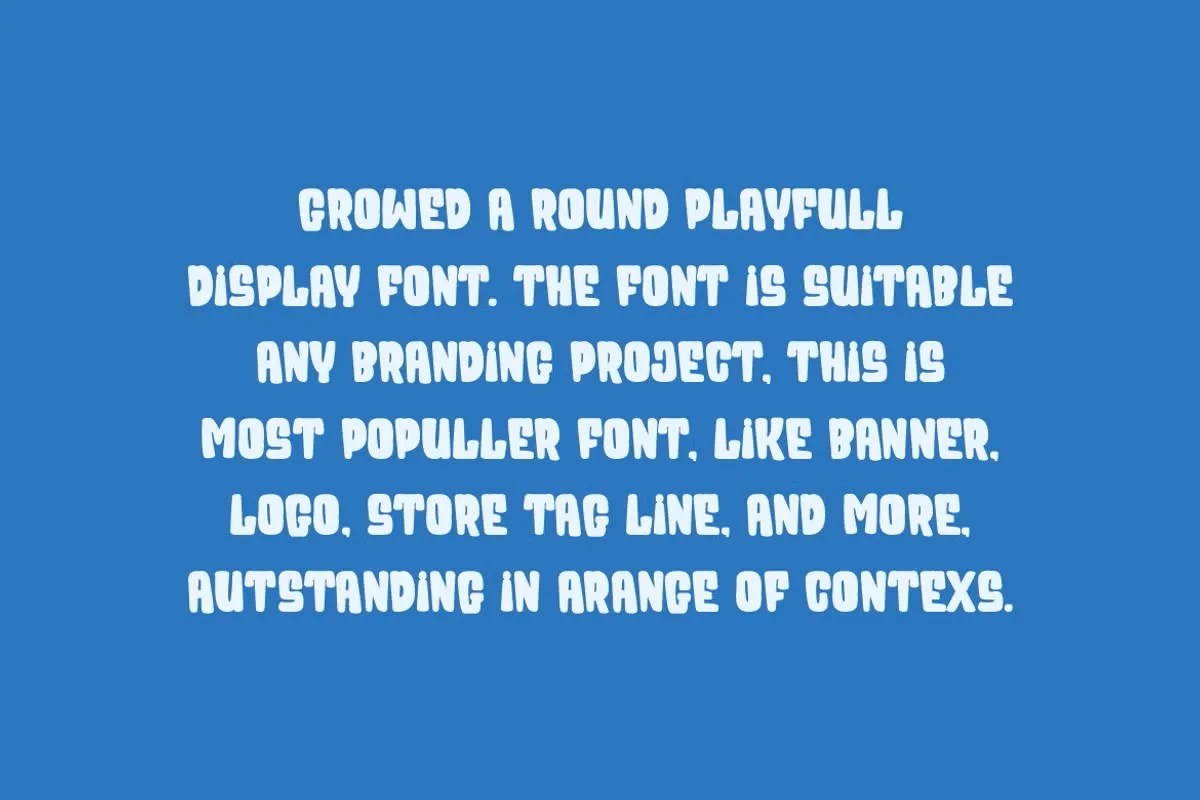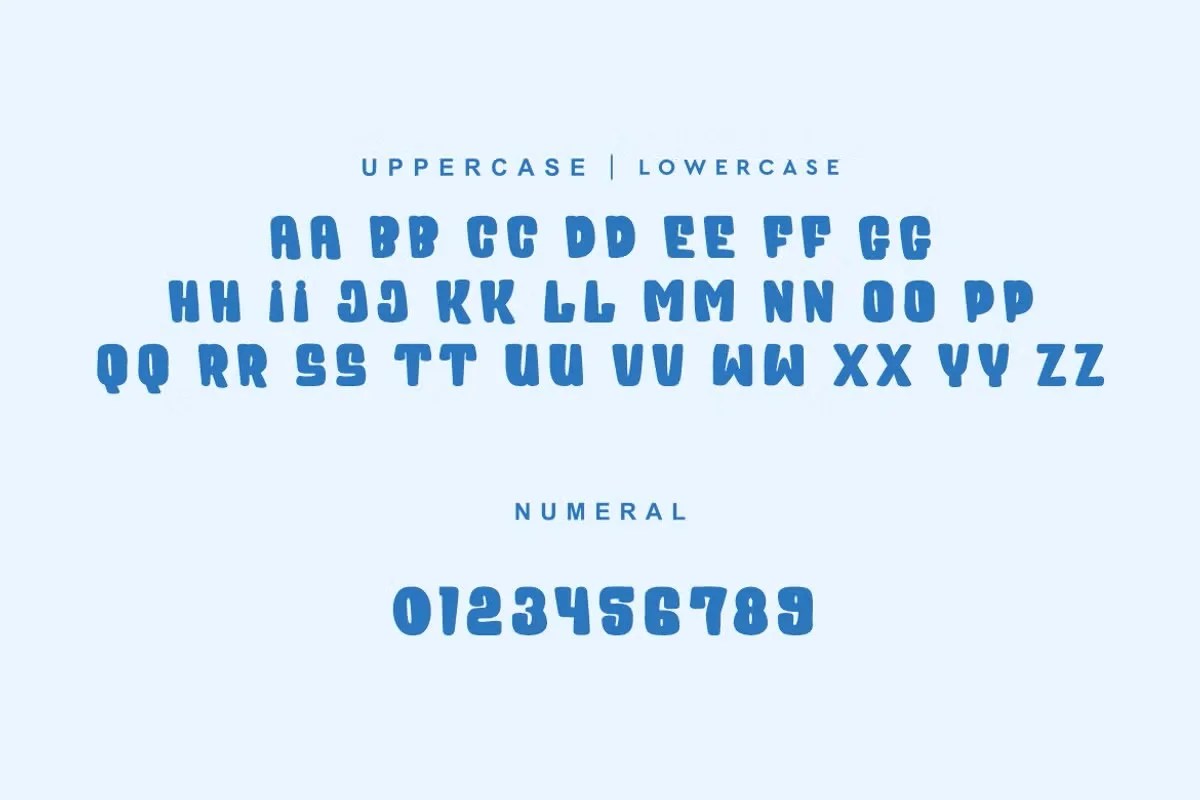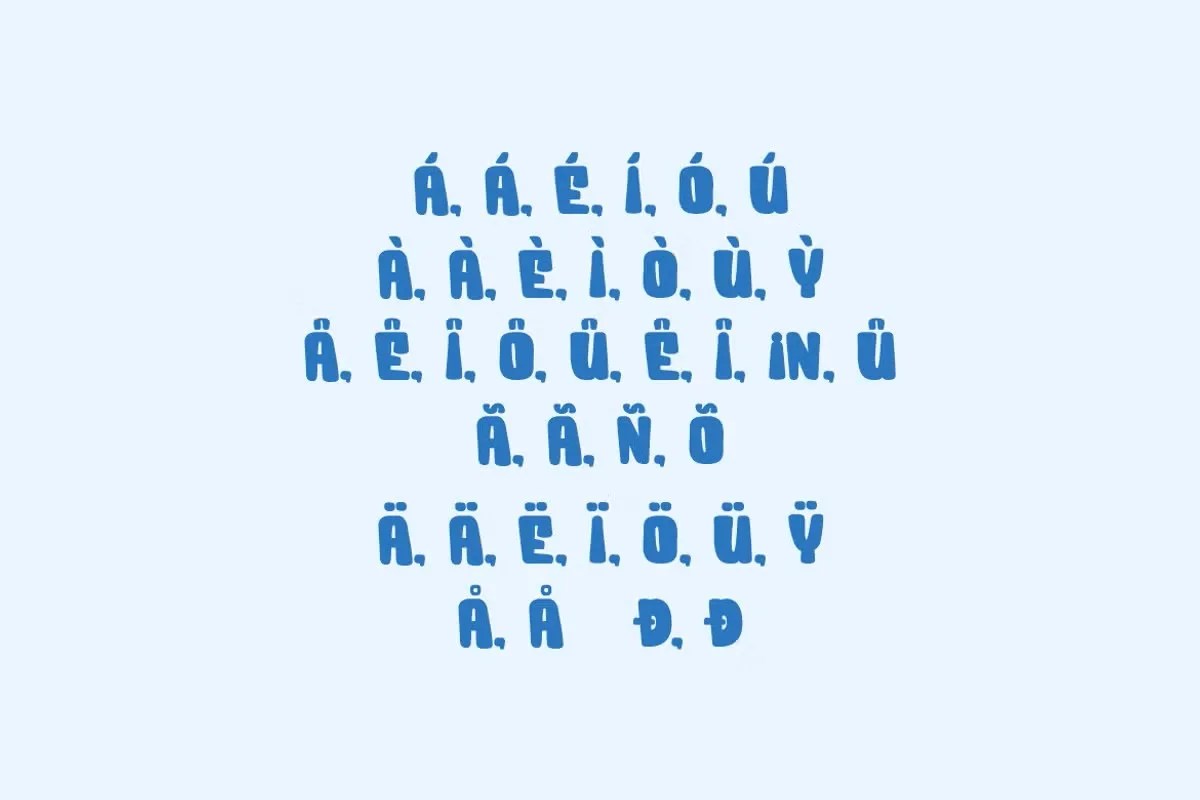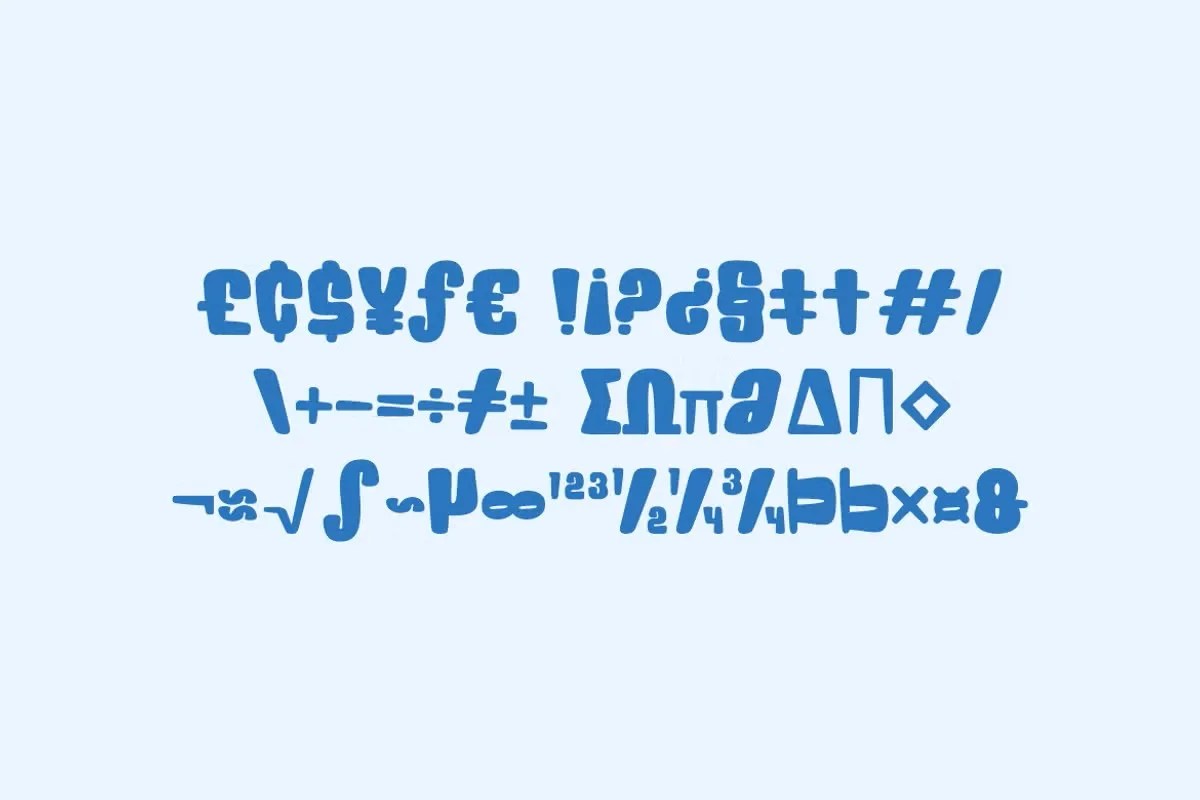
Growed by QR Design Studio. This is a warm and friendly organic sans serif font. It draws inspiration from the gentle, imperfect shapes found in nature. The font’s design avoids harsh lines and rigid, geometric rules. Instead, it offers a soft and approachable feel for your text. Growed is perfect for brands and projects that want to communicate a natural, wholesome, and positive message to their audience.
This font works wonderfully for projects with a positive and natural theme. Specifically, it is a perfect choice for organic food packaging or a wellness blog’s branding. It helps convey a sense of health and authenticity at a single glance. Furthermore, this organic sans serif font is great for children’s books and educational products. Its friendly nature makes it appealing and easy for young readers to follow. Use it for any design that needs to feel genuine, caring, and close to nature.
• Friendly and organic sans serif style
• Features soft, rounded corners and humanist forms
• Ideal for eco-friendly, wellness, and lifestyle branding
• Provides a warm and approachable feel